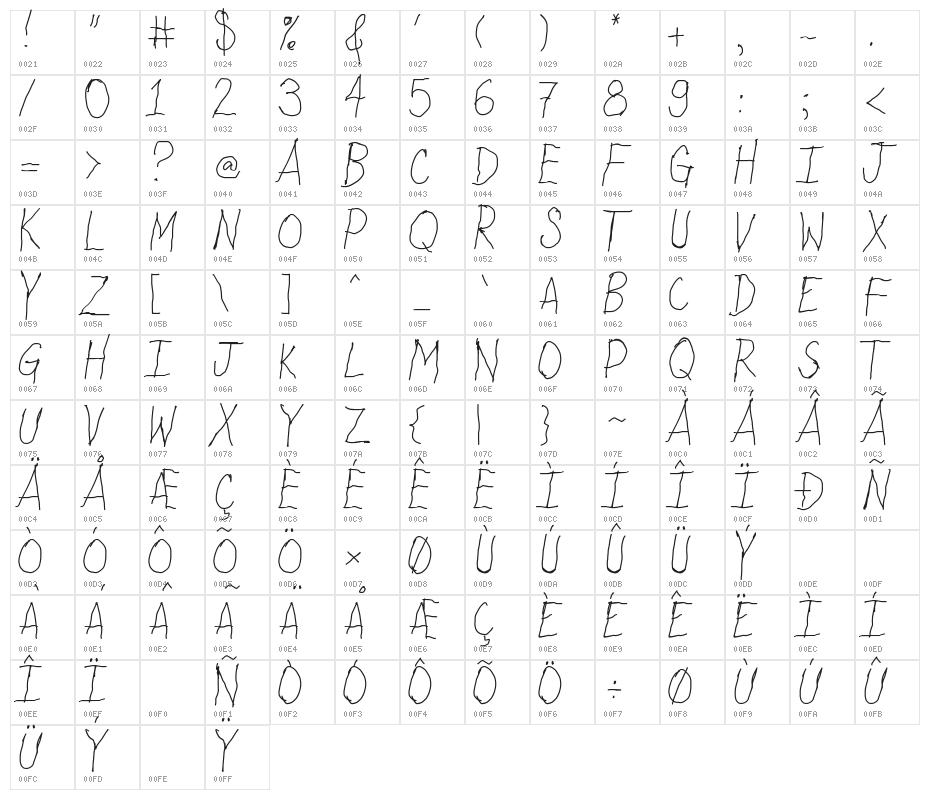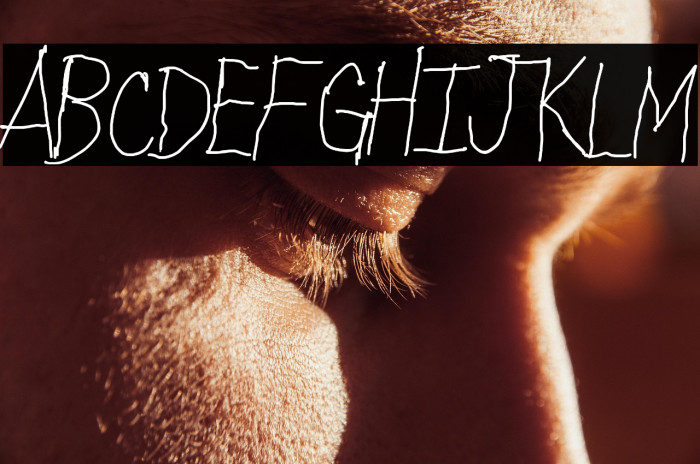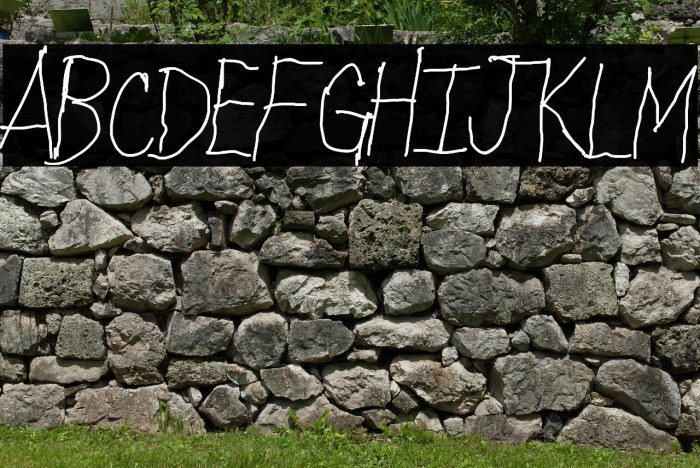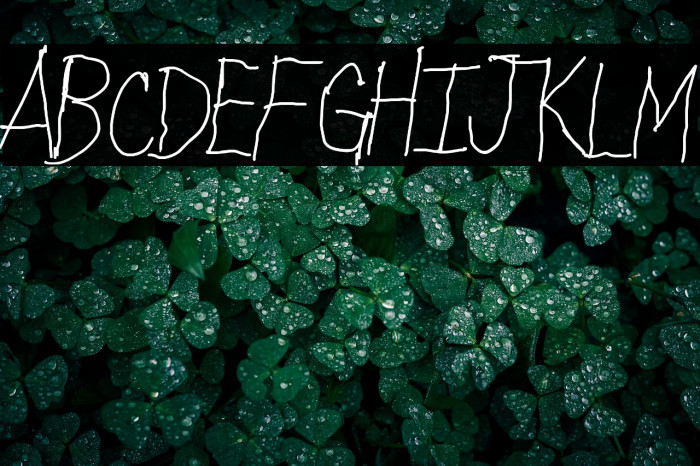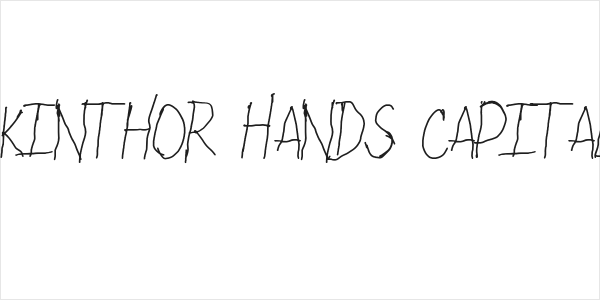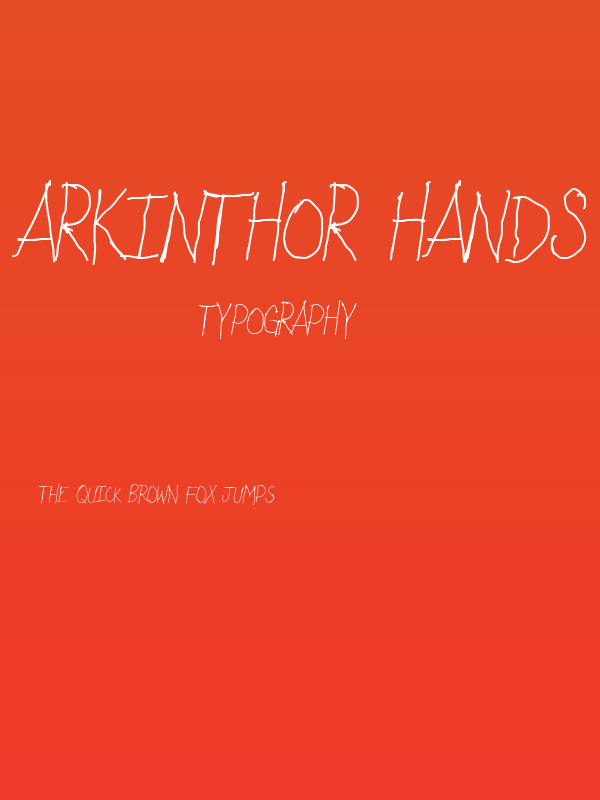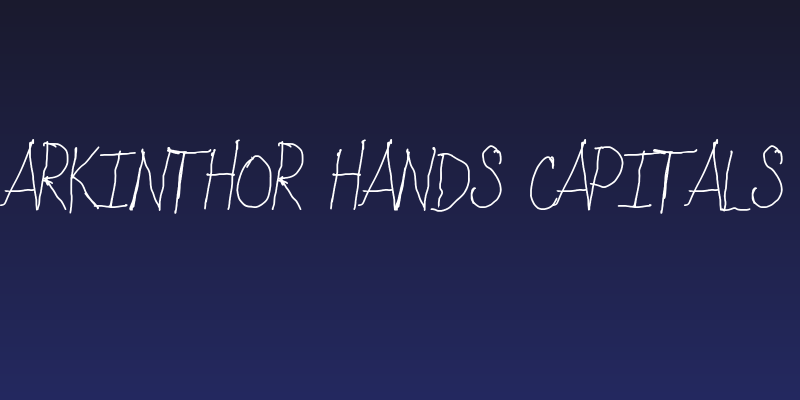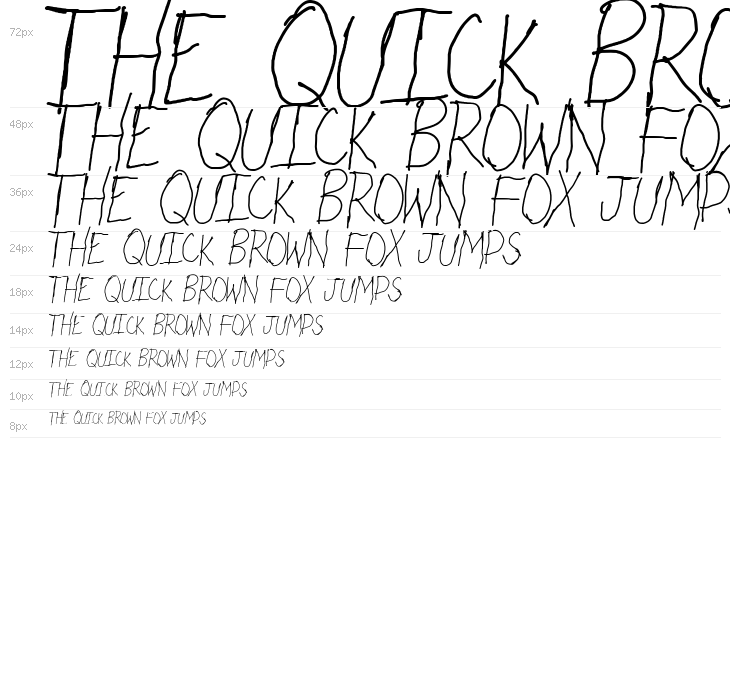
Arkinthor Hands Capitals Font
Arkinthor Hands Capitals Description
A rough, hand-drawn uppercase font with irregular line thickness and sketch-like strokes, giving a spontaneous and expressive handwritten appearance. The characters are tall and narrow, with uneven baselines and varying heights, contributing to a raw and organic feel.
| Overall Style | Decorative, Expressive, Raw |
| Proposed Projects | Posters, album covers, horror or thriller titles, zines, creative branding, event flyers. |